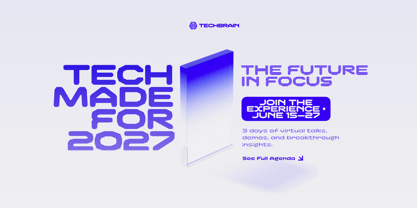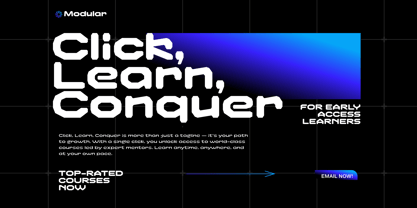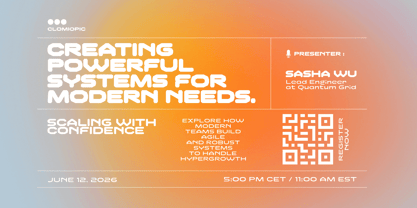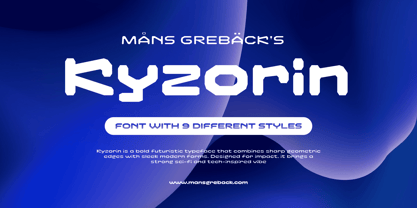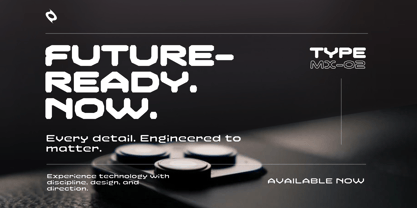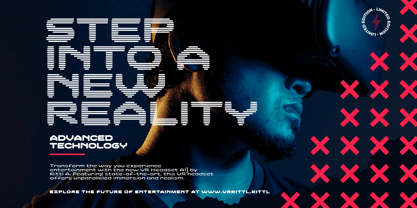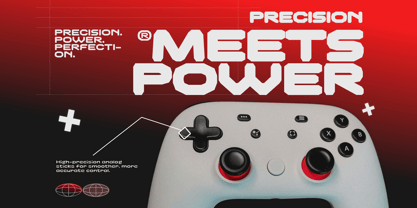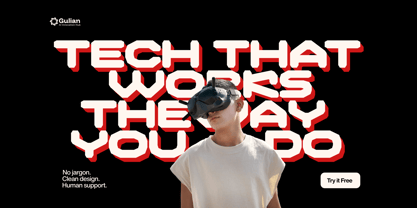
Kyzorin
by Mans Greback
The Kyzorin Font Family was designed by Måns Grebäck and published by Mans Greback. Kyzorin contains 9 styles and family package options. More about this family
Kyzorin is a futuristic display typeface constructed with precision and bold confidence. Its strong presence of the characters makes it ideal for logos, esports branding or sci-fi themes where impact and clarity are key. With its octagonal structure and minimalistic, digital-era rhythm, Kyzorin brings a stylized, retro-futuristic flavor while maintaining legibility. The family includes a variety of weights and styles, such as Hatch, Outline, and Extrude, each offering a unique take on the same solid core. Whether you're designing a cyberpunk title or a robotic interface, Kyzorin projects a sense of forward motion. The font is built with advanced functionality and guaranteed top-notch quality, containing stylistic and contextual alternates, ligatures and more automatic and manual features; all to give you full control and customizability. It has extensive lingual support, covering all Latin-based languages, from North Europa to South Africa, from America to South-East Asia. It contains all characters and symbols you'll ever need, including all punctuation and numbers. Designed and produced by Mans Greback, a leading type designer known for combining classic craftsmanship with modern aesthetics.
Måns Grebäck is a type designer and font creator specializing in script typography, but with a portfolio containing a vast selection of styles. Typefaces from Måns Grebäck are used as company and product logotypes, as well as headlines and in advertisement by a wide range of industries world-wide. Founded by Måns Grebäck in 2010, Mans Greback AB originally went under the name of Mawns Fonts and later Aring Typeface AB. While the foundry has its seat Örebro, Sweden, Måns also lives in Portugal. The Premium Foundry page can be viewed Here.